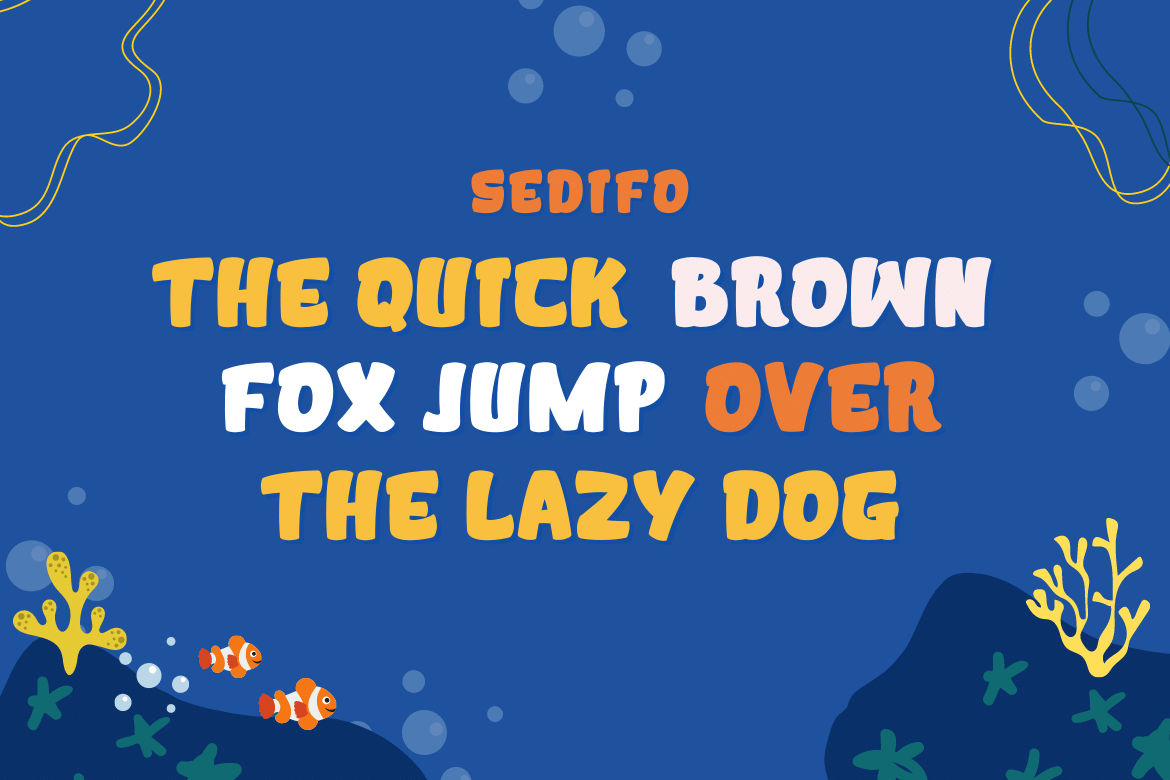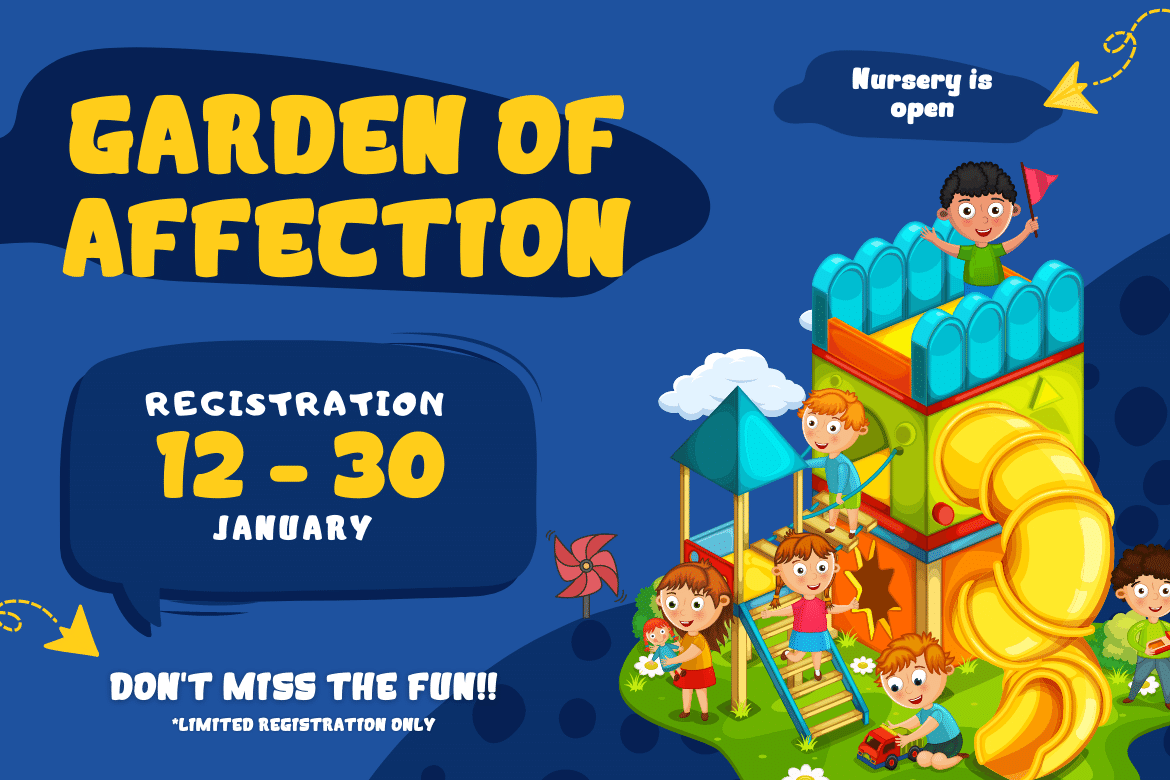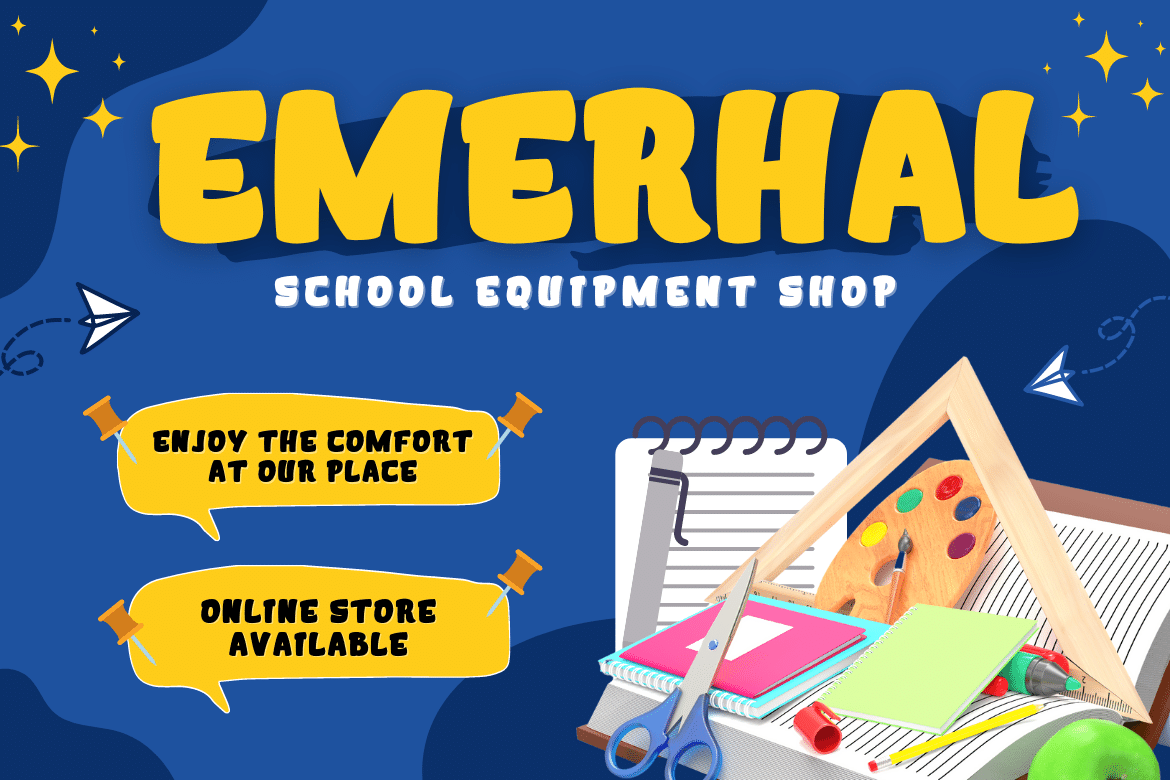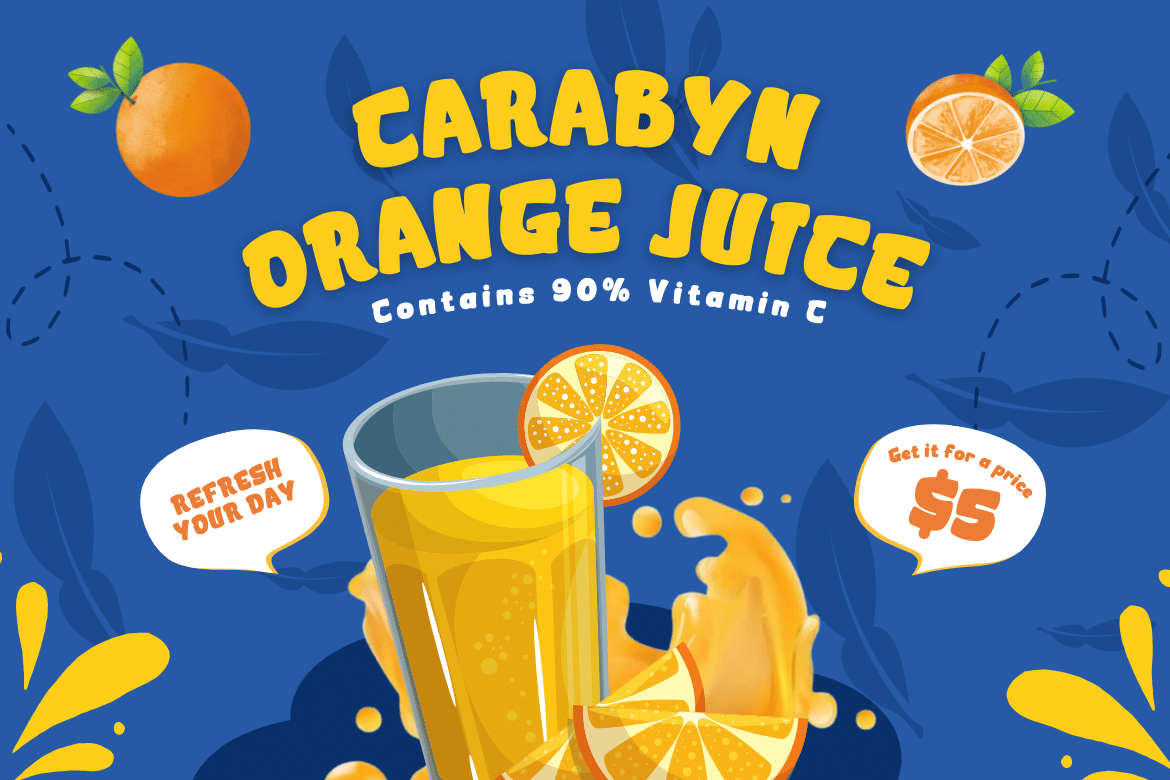
Sedifo Font
Sedifo Display Font
It’s a fun, cheerful, and unique font. When used in conjunction with other fonts in our collection, it gives you the ability to create unique, captivating, and highly impressive visual displays. This multipurpose font will be very easy for you to use in your various projects.
of course, your various design projects will be perfect and extraordinary if you use this font because this font is equipped with a font family, both for titles and subtitles and sentence text, start using our fonts for your extraordinary projects.